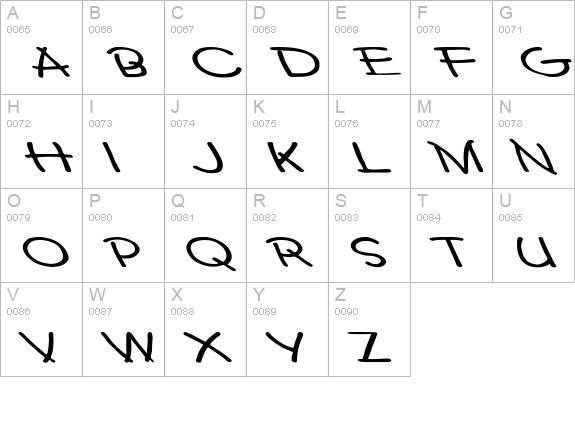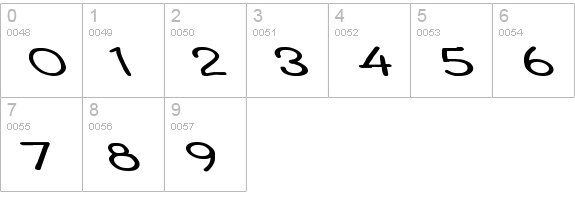
Lumparsky Ex Lefty Font Details
Lumparsky Ex Lefty font is a unique and captivating typeface that exudes a sense of creativity and originality. With its bold strokes and playful curves, this font is perfect for making a statement in your designs. Whether you're looking to add a touch of whimsy to your branding or create eye-catching headlines, Lumparsky Ex Lefty font is sure to stand out. What sets this font apart is its distinctive left-handed slant, giving it a quirky and dynamic appearance. The characters flow effortlessly from left to right, adding a sense of movement and energy to your text. Whether you're designing posters, logos, or social media graphics, Lumparsky Ex Lefty font will bring a fresh and exciting look to your projects. And the best part? Lumparsky Ex Lefty font is completely free to download at FontsMarket.com. So go ahead and unleash your creativity with this one-of-a-kind typeface that is sure to make a lasting impression.